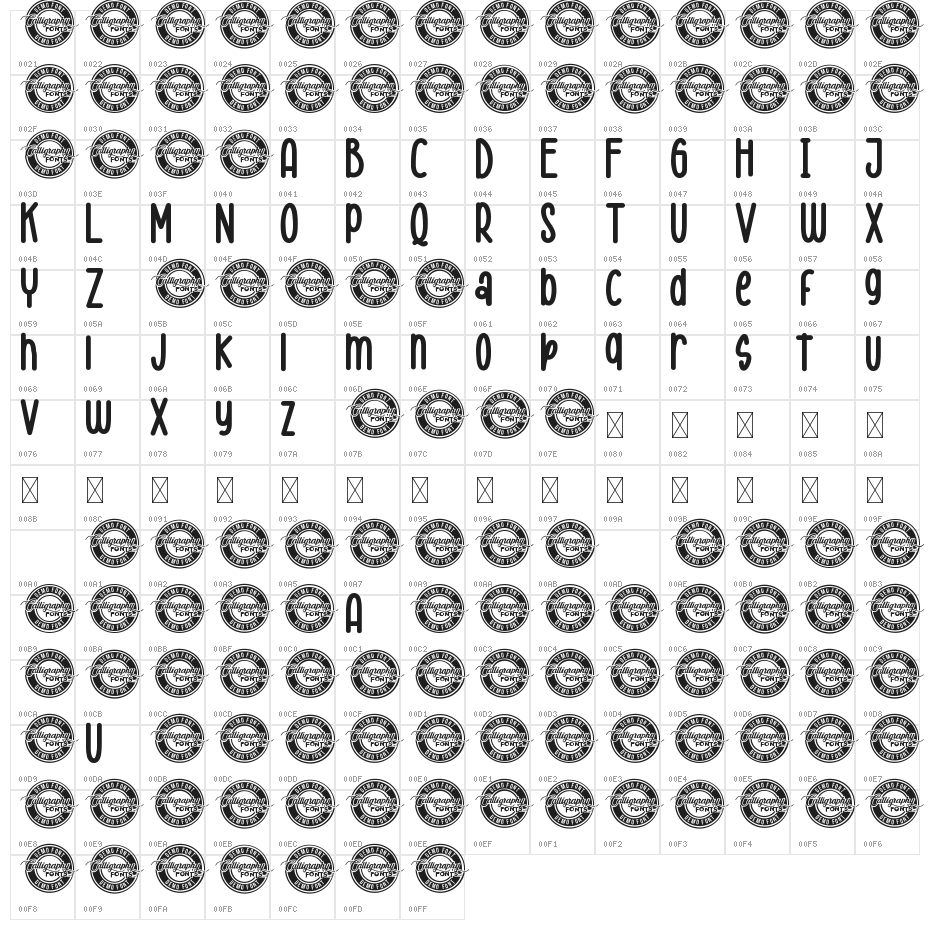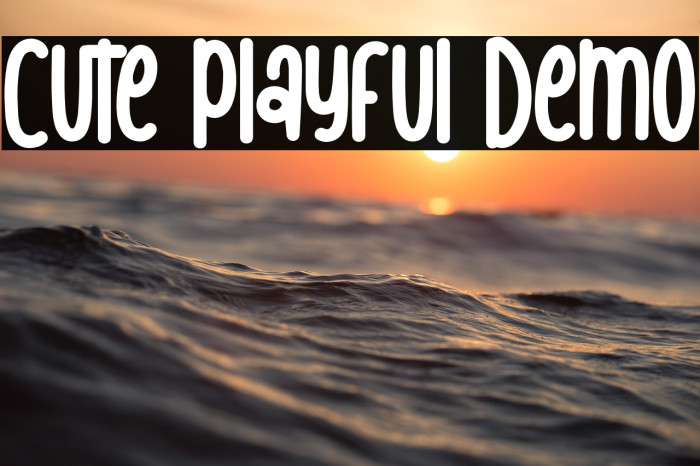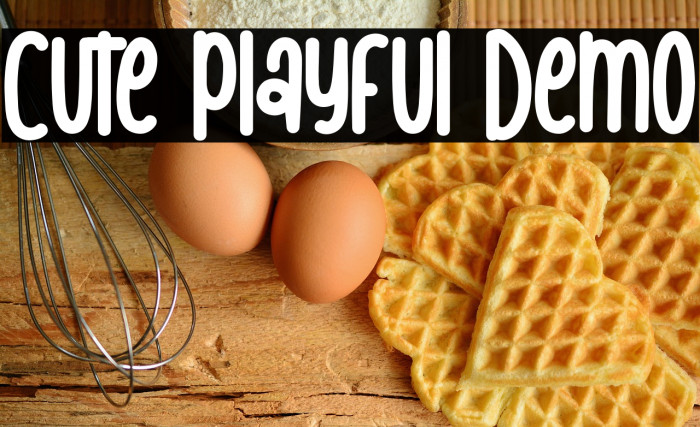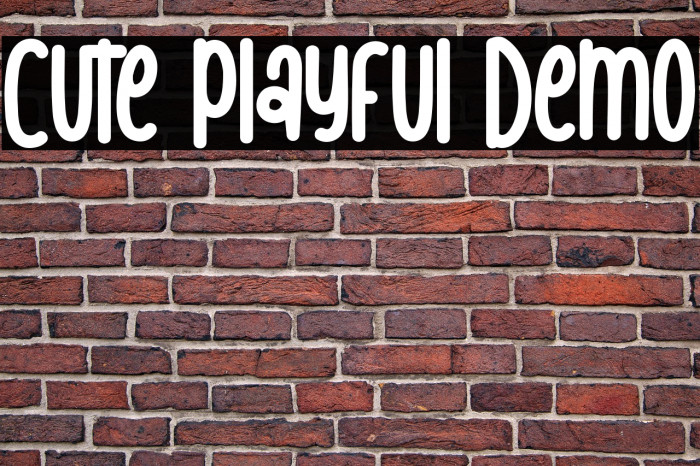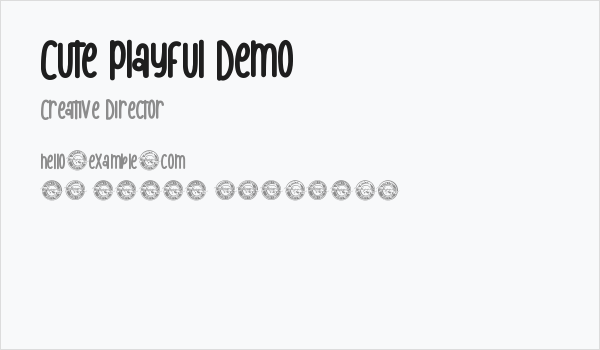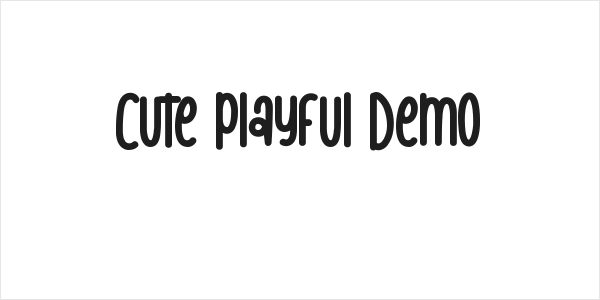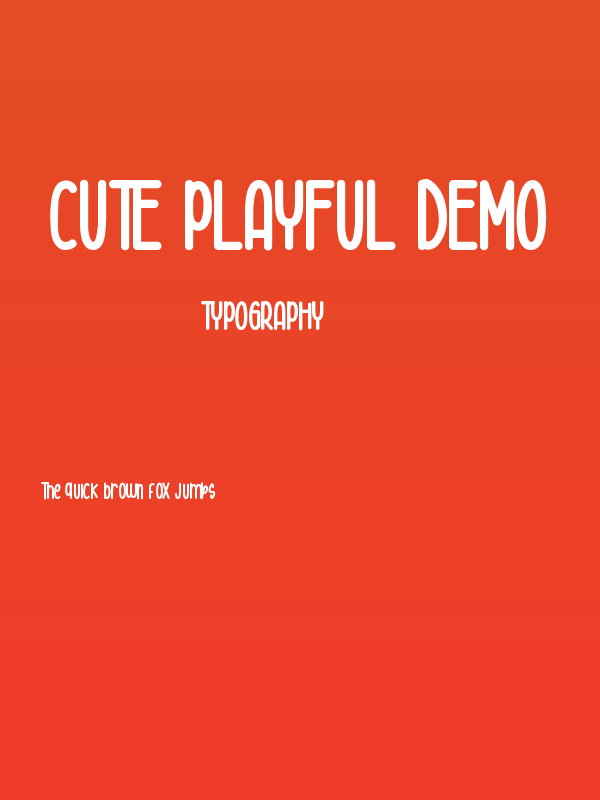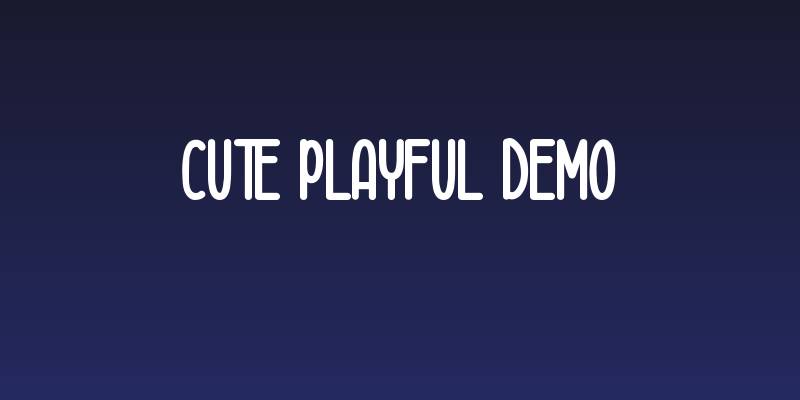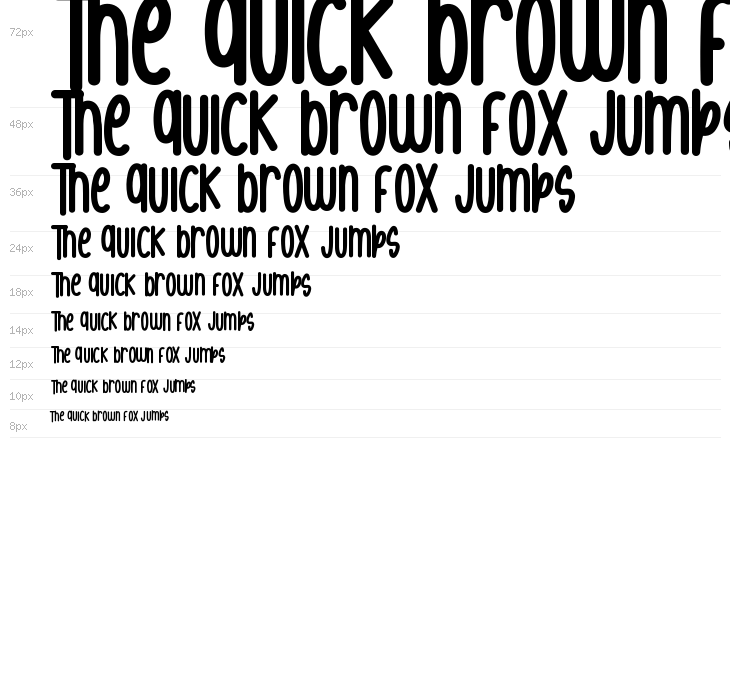
Cute Playful Demo Font
Cute Playful Demo Description
This font features a playful and whimsical design, characterized by its rounded and bold letterforms. The uppercase and lowercase letters maintain a consistent style, with smooth curves and a slightly condensed appearance. The numbers and special characters follow the same playful aesthetic, making the font suitable for fun and engaging designs. The overall look is friendly and approachable, ideal for projects that require a touch of creativity and lightheartedness.